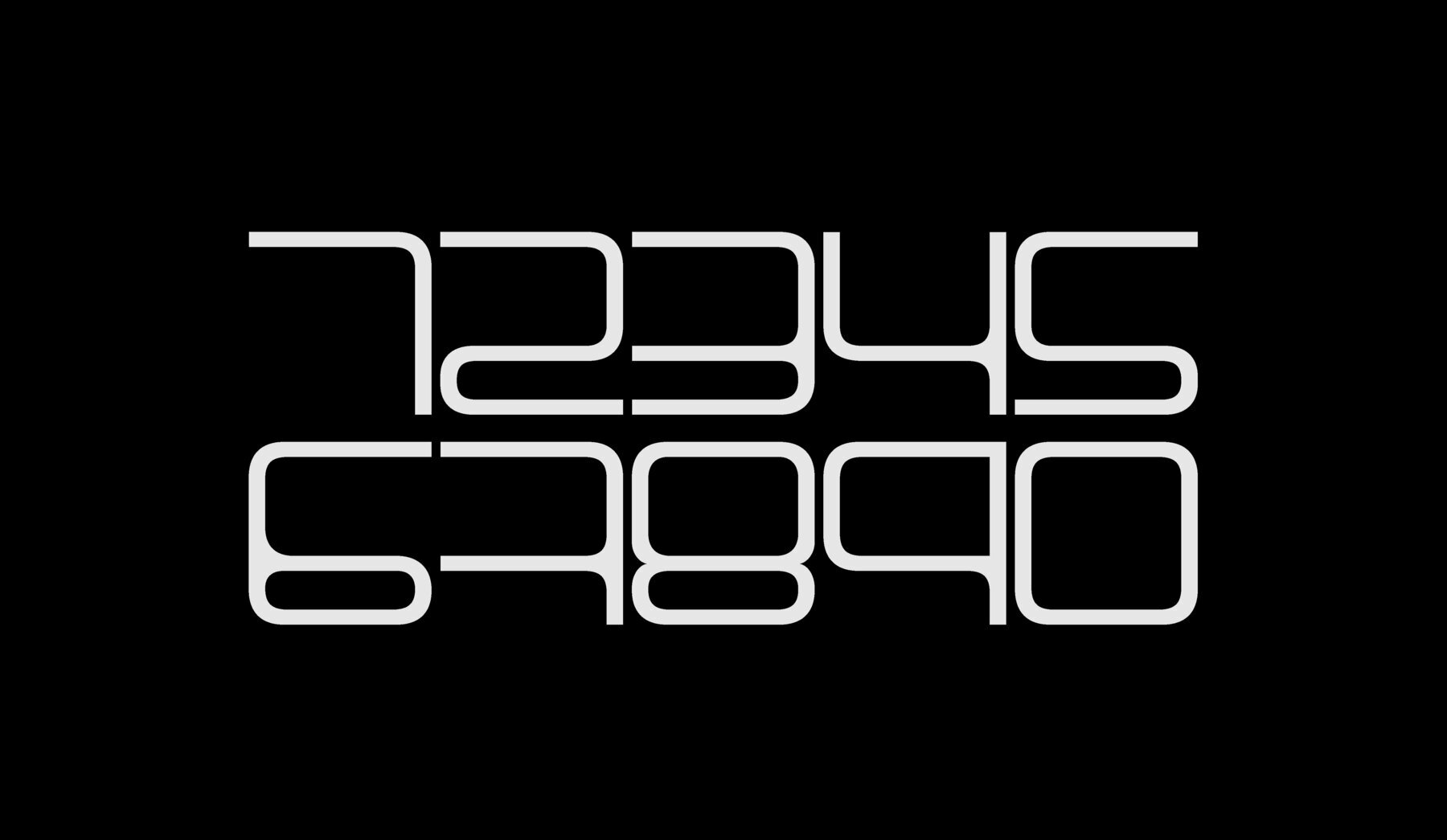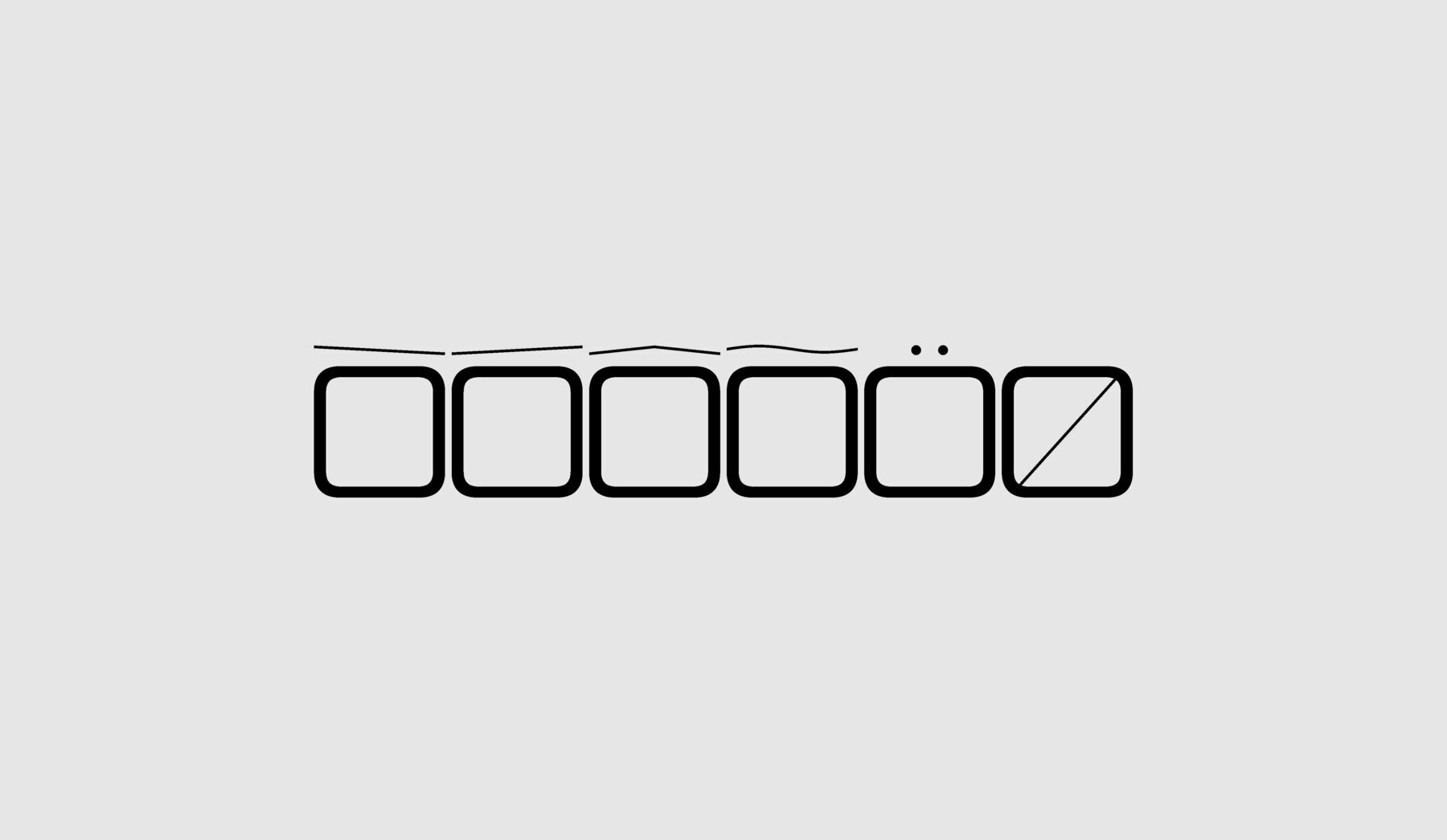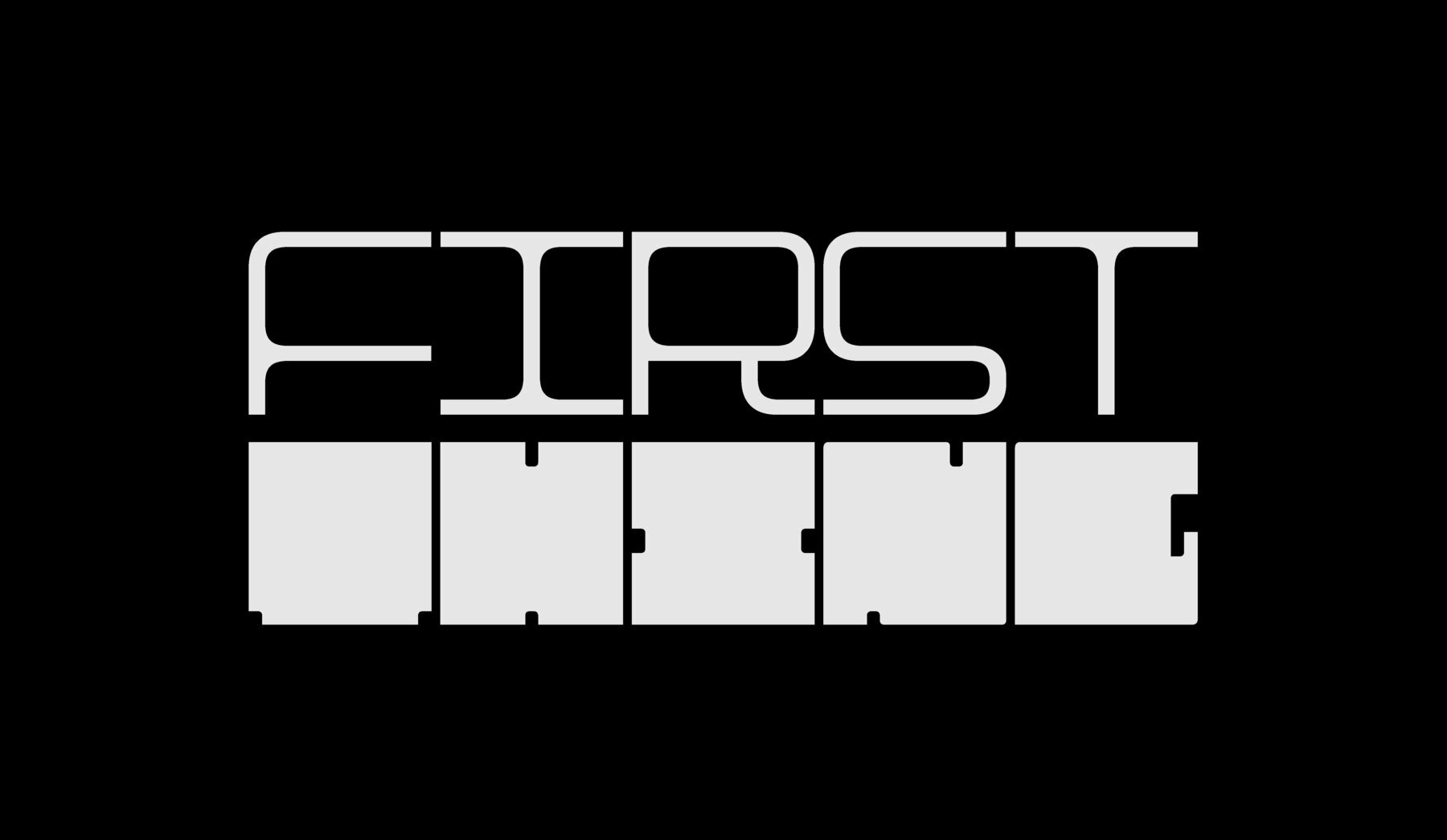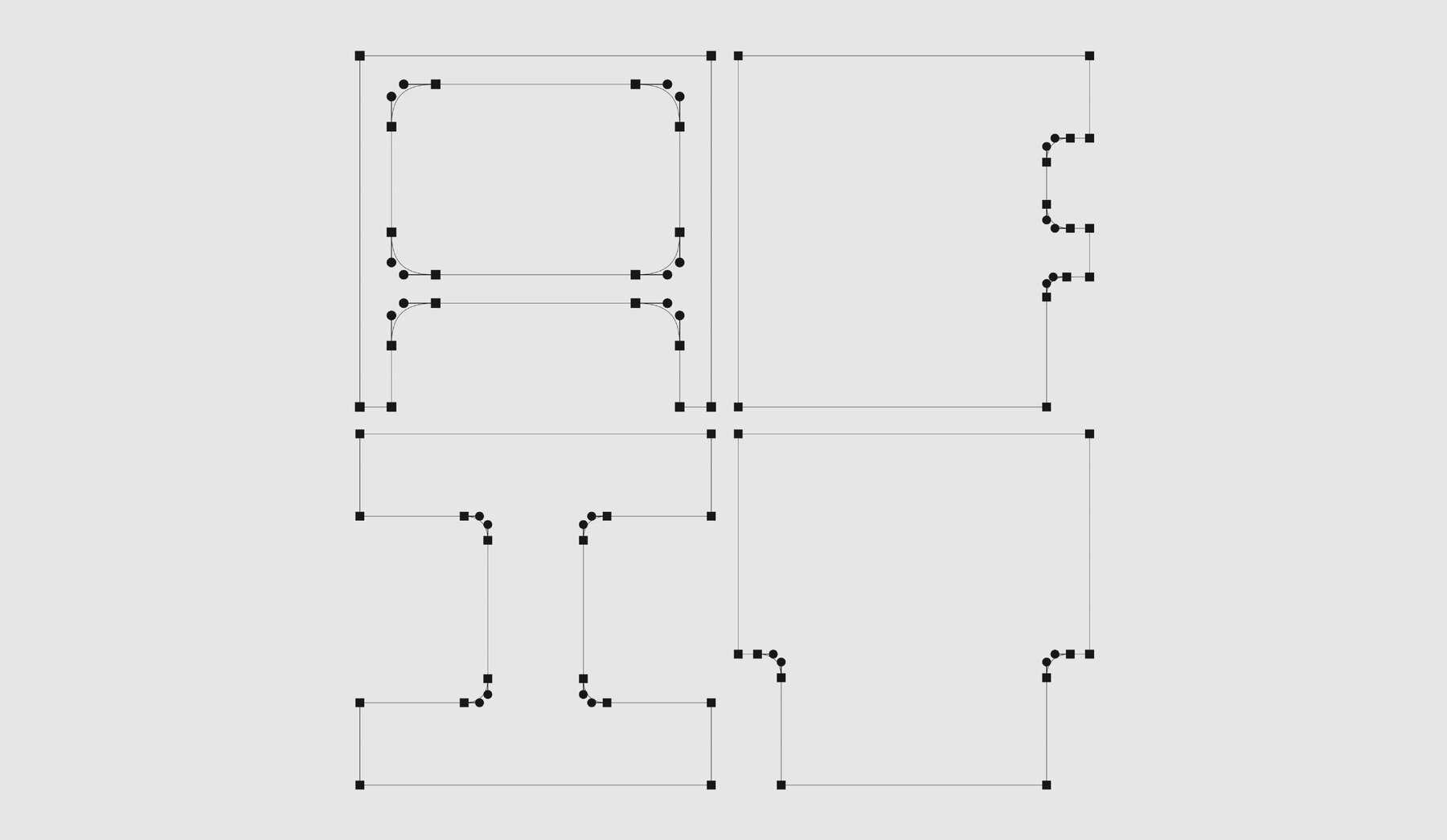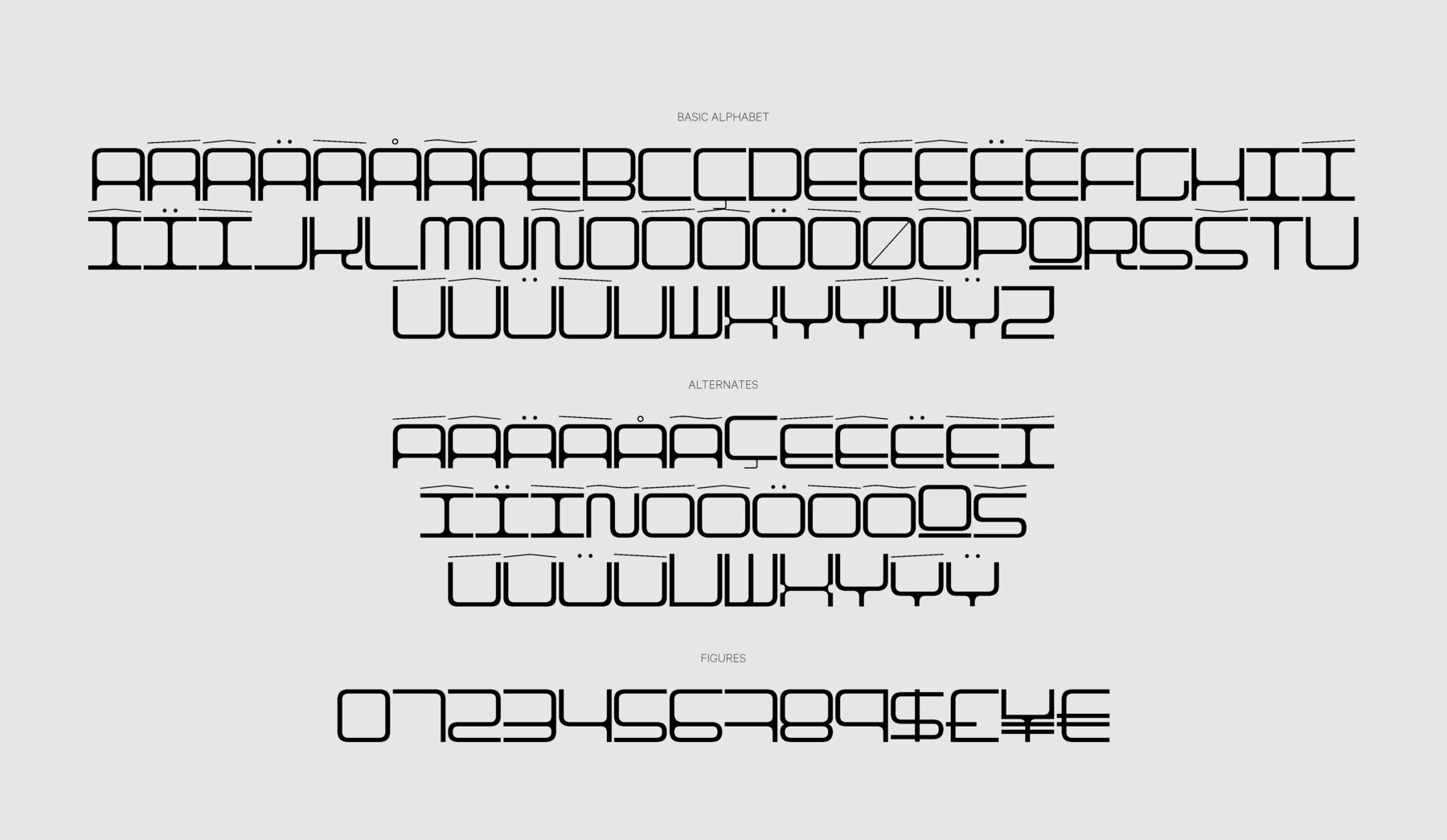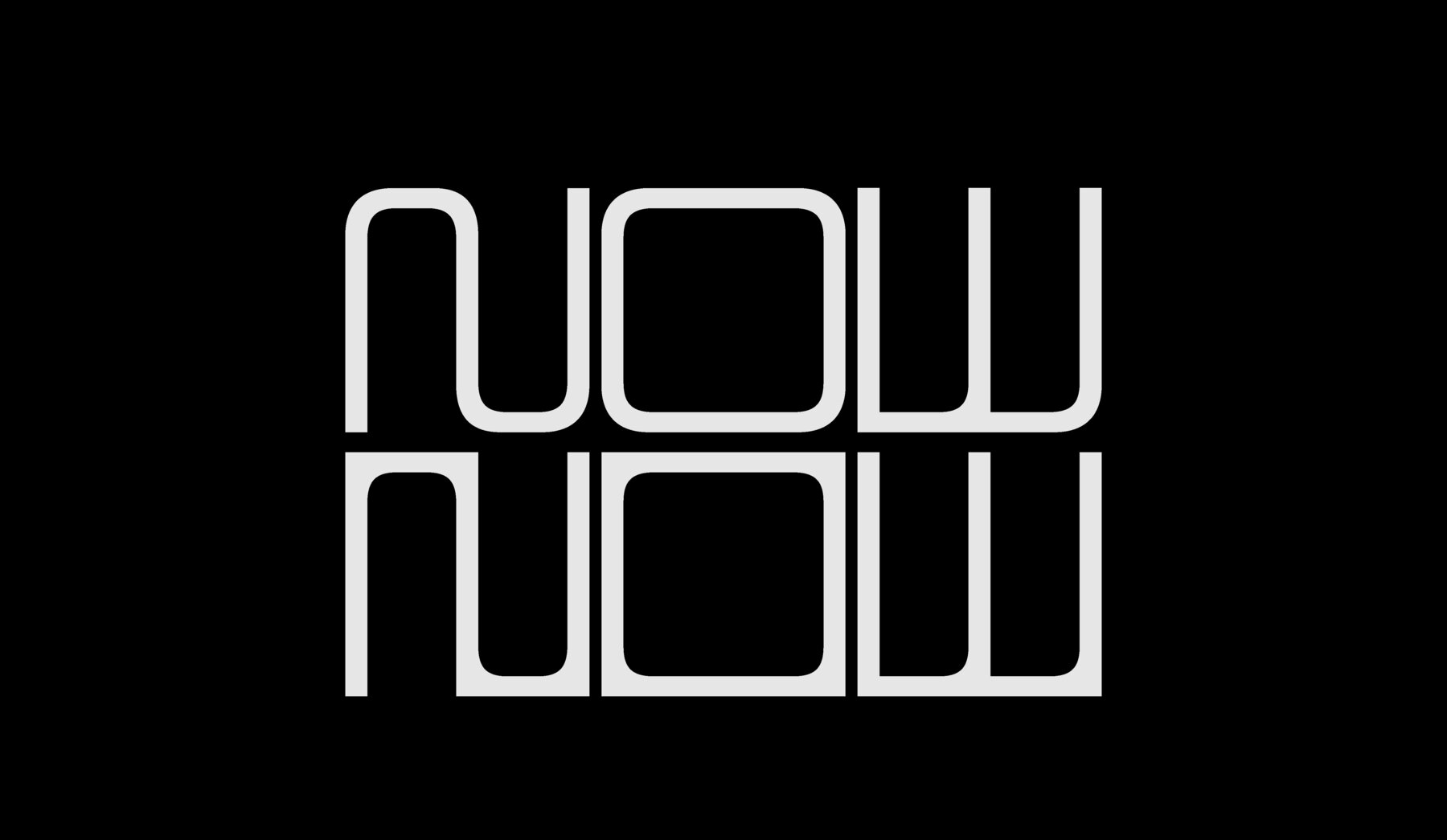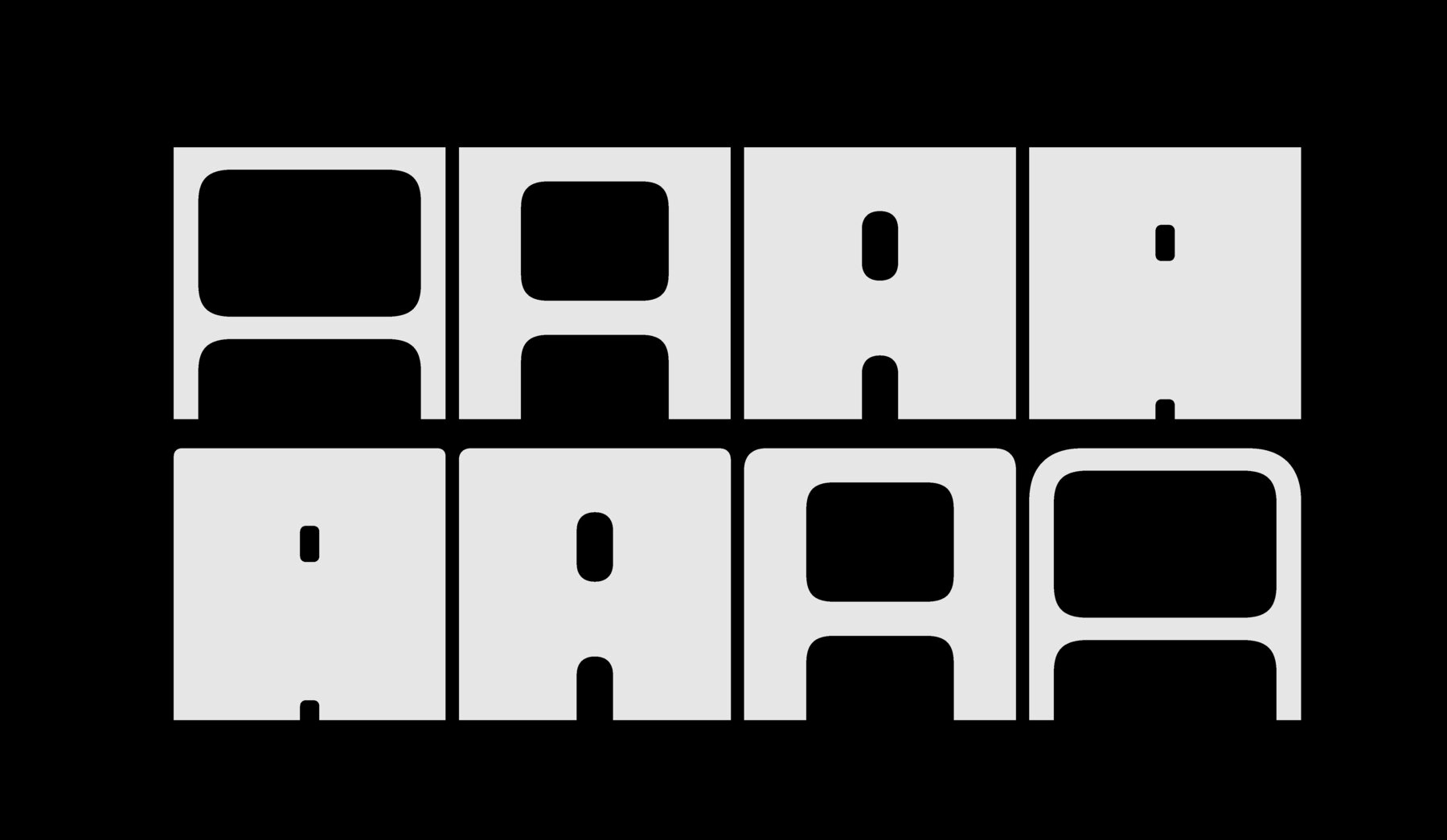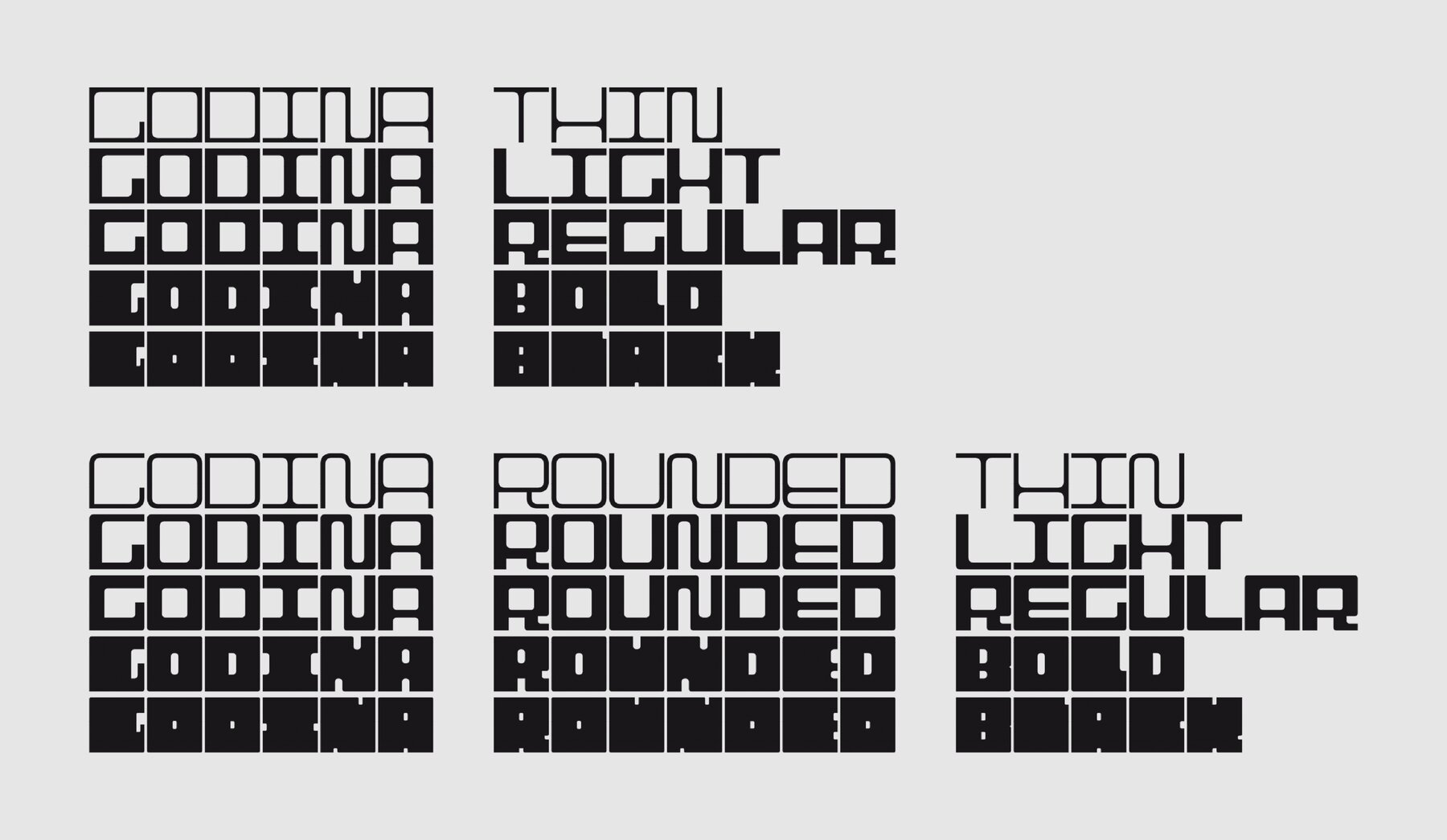
AM Godina Font
AM Godina is a typeface inspired by the concept that primary geometric forms can create a complete and engaging alphabet. This font explores the art of deconstruction and reconstruction of shapes, resulting in captivating typographic designs. Its unique approach allows designers to experiment and innovate within their creative projects. The historical name Godina is a homage to Doña Godina, a benefactor from the 12th century noted for her philanthropic contributions to a village developed around her donated orchard.
This typeface is perfect for projects that seek to combine historical significance with modern design elements. By paying tribute to an influential figure, it infuses each project with a touch of cultural depth. Whether used in digital or print media, AM Godina provides versatility and a distinct aesthetic that resonates well with the realms of brand identity, editorial design, and more. Its adaptability makes it an excellent choice for designers looking to bring both structure and fluidity to their visual creations.